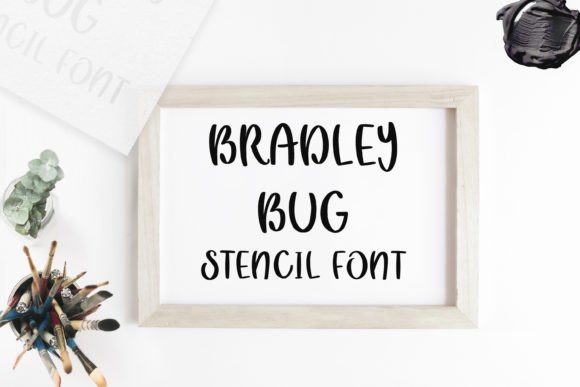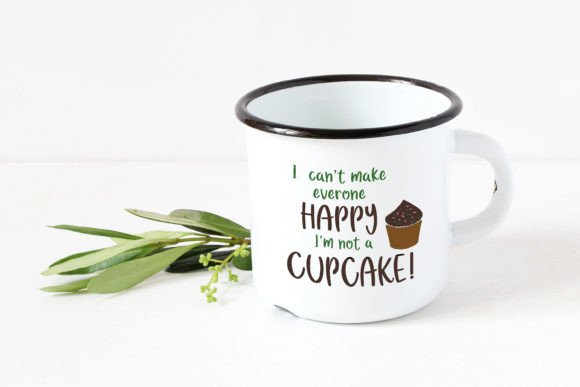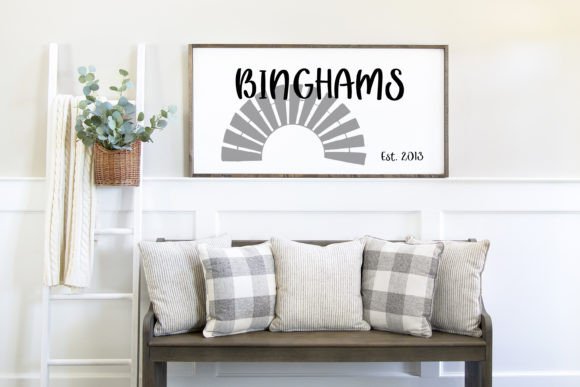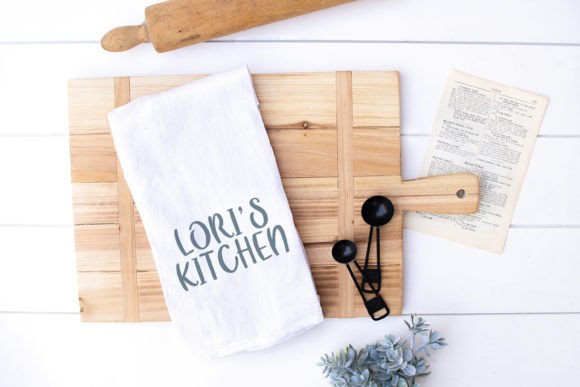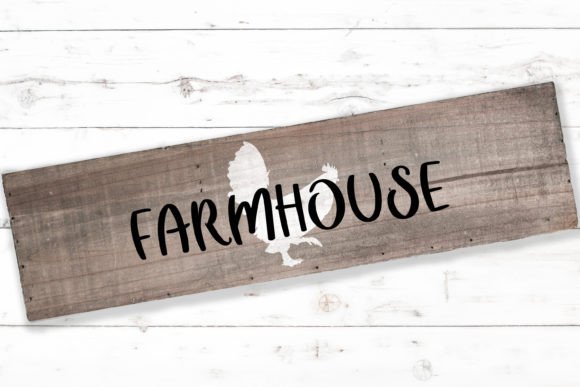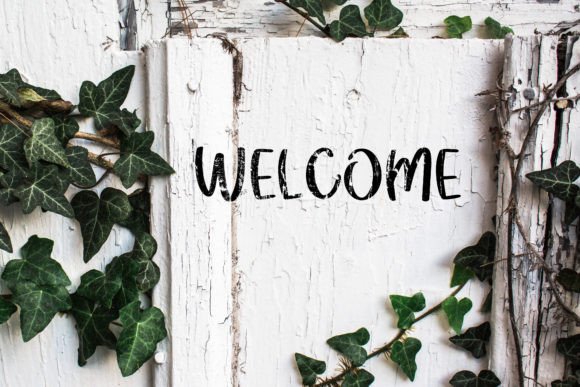
This font was created for stenciling to make life easier and to create cards and SVG designs. It sure makes weeding easier!!
You will notice that the letters like, O B D A are not closed.
Bradley Bug Stencil Font